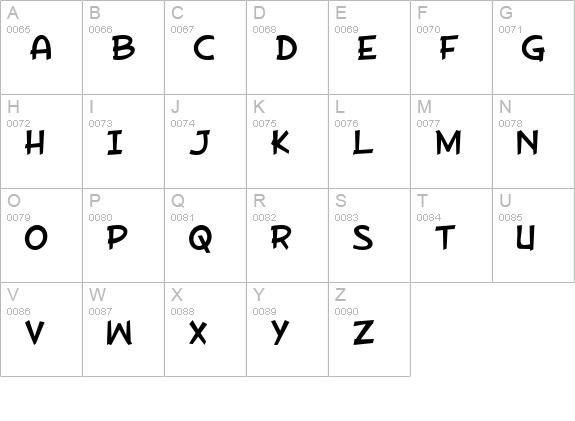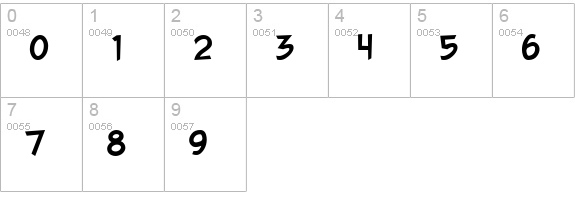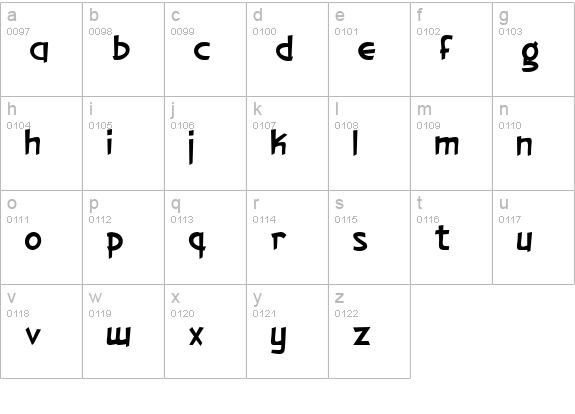
Gorilla Milkshake Font Details
Introducing Gorilla Milkshake, a bold and powerful typeface that will make your designs stand out from the crowd. This unique font exudes strength and confidence, with its thick, chunky letterforms that command attention. Gorilla Milkshake is perfect for a wide range of design projects, from eye-catching headlines to impactful logos. Its distinctive style adds a touch of wildness and adventure to any composition, making it a go-to choice for those seeking a bold and fearless aesthetic. But what makes Gorilla Milkshake even more appealing is the fact that it is freely available to download at FontsMarket.com. Yes, you read that right - this remarkable font can be yours without spending a dime. Whether you're a professional graphic designer or a passionate hobbyist, you can unleash your creativity without any financial constraints. With Gorilla Milkshake, you have the freedom to create captivating designs without worrying about breaking the bank. Its versatility allows it to be used in a variety of contexts, making it a valuable asset for any designer's toolkit. So why wait? Head over to FontsMarket.com and get your hands on Gorilla Milkshake today. Elevate your designs with this powerful and free font, and let your imagination run wild. Don't miss out on this incredible opportunity to bring your projects to life with Gorilla Milkshake - the font that combines strength, style, and affordability in one package.